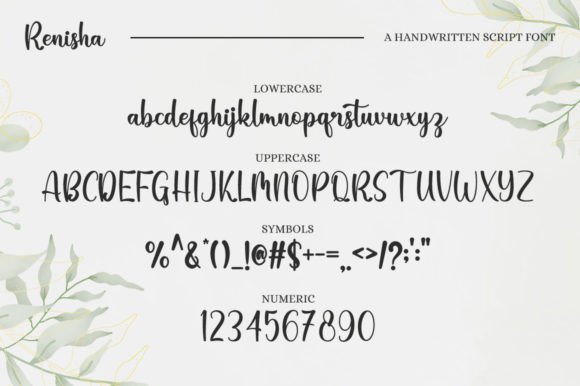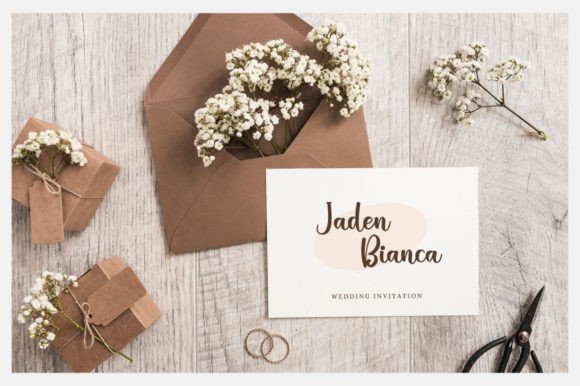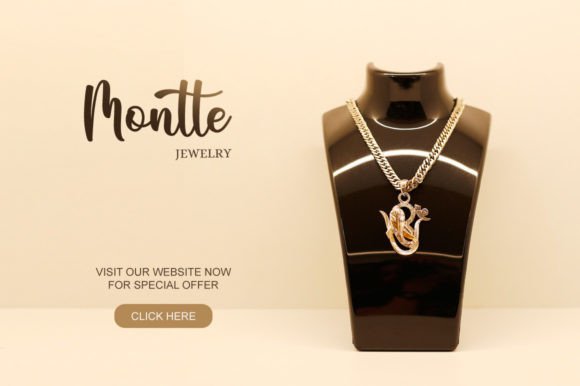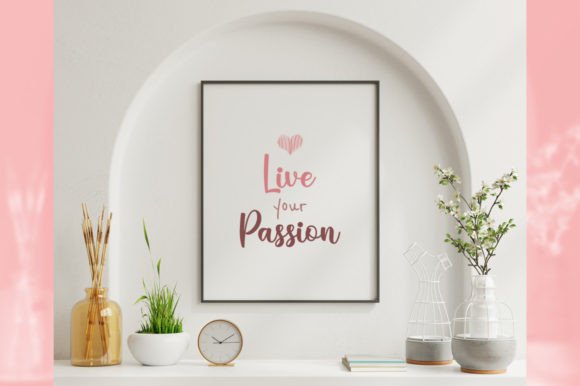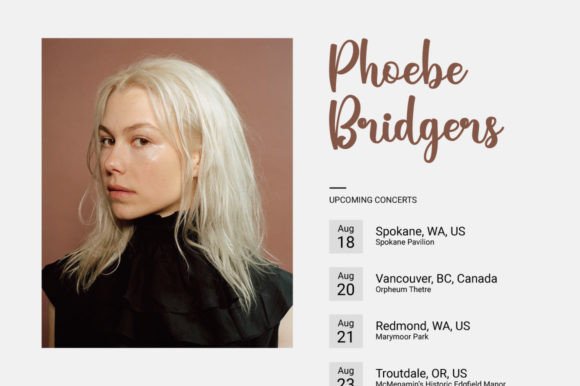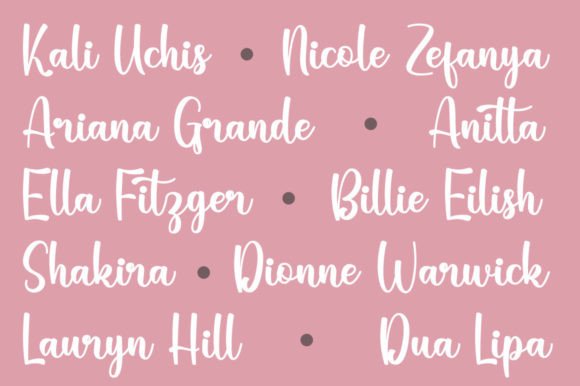
Introduction to Renisha Font
Have you ever stared at a blank canvas, trying to come up with the perfect design for your creative project? The blank page can be intimidating, but sometimes all it takes is the right tool to spark inspiration. For designers, finding the perfect font can make all the difference between a good design and a great one.
Enter the lovely and timeless Renisha Font, a high-quality design resource that’s perfect for creating eye-catching logos, branding, and quotes. With its free download and transparent background, Renisha Font is a valuable addition to any designer’s toolkit. Whether you’re working on a personal project or a client’s brand identity, this font is sure to help you stand out from the crowd.
Key Features of Renisha Font
- High-quality design resource ideal for creative projects and designs.
- Includes a transparent background, allowing for seamless integration with various design elements.
- Features a unique, modern design aesthetic that is sure to elevate any creative project.
Honest Review: Renisha Font
I recently had the chance to work with the Renisha Font, and I must say it’s been a game-changer for my creative projects. This free download has become a staple in my design resource library.
- ✨ High quality and crisp typography
- ✨ Beautifully designed, making it perfect for a variety of design projects
- ✨ Transparent background, allowing for easy composition and layering
- ⚠️ Limited character set, which can be a challenge for longer text-based projects
- ⚠️ May require some tweaking to get the desired look in certain design scenarios
Overall, I’m really impressed with the Renisha Font. Its high quality and versatility make it a valuable addition to any designer’s toolkit. While it may have some limitations, the benefits far outweigh the drawbacks. If you’re looking for a reliable and stylish font, I’d definitely recommend giving the Renisha Font a try.
Tips for Getting the Most Out of Renisha Font
Some tips for getting the most out of the Renisha Font include using it in combination with other design elements, experimenting with different font sizes and styles, and taking advantage of its transparent background to create visually appealing graphics.
Common Use Cases for Renisha Font
The Renisha Font is particularly useful for creative projects that require a high-quality, stylish font with a transparent background. Some common use cases include graphic design, digital art, and presentation design.
Alternatives to Renisha Font
Montserrat is a high-quality sans-serif font ideal for creative projects that require a clean and modern look. It’s perfect for headings and titles in designs with a transparent background.
Compared to Renisha Font, Montserrat is more geometric and has a stronger emphasis on horizontal lines, making it suitable for designs with a lot of text.
Open Sans is a free download font that’s widely used in design projects due to its high legibility and versatility. It’s an excellent choice for body text and works well in designs with a transparent background.
Open Sans is more readable than Renisha Font, especially in smaller font sizes, making it ideal for long-form content and documents.
Lato is a beautiful sans-serif font that’s perfect for creative projects requiring a touch of elegance and sophistication. It’s suitable for headings, titles, and body text in designs with a transparent background.